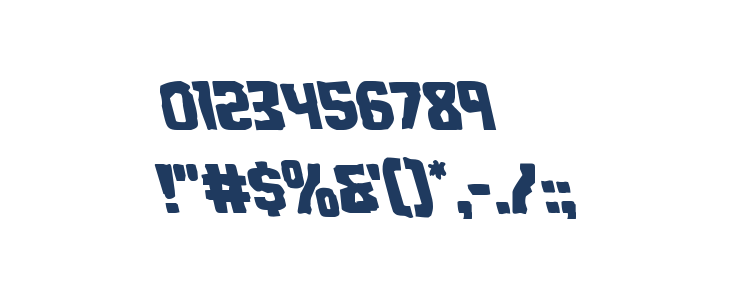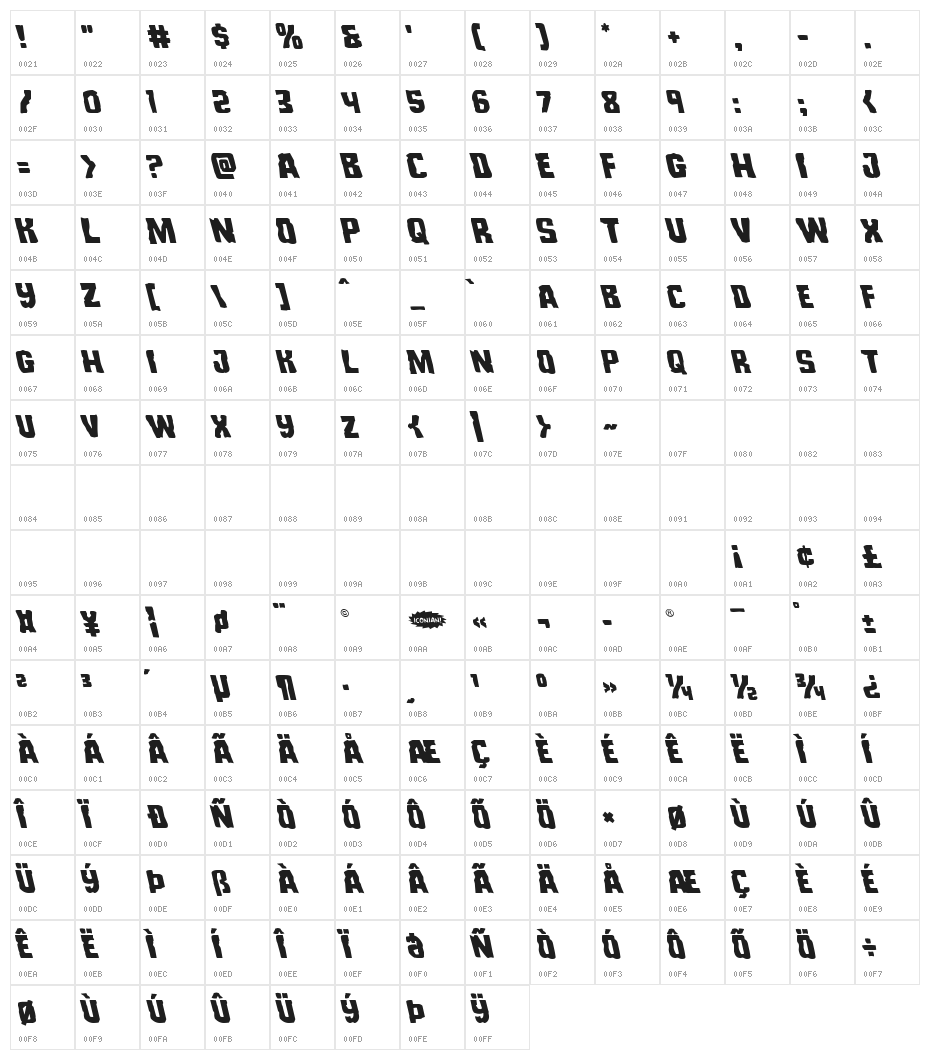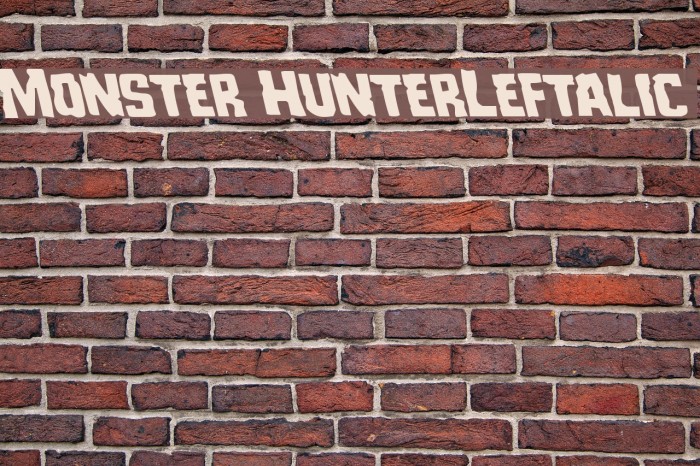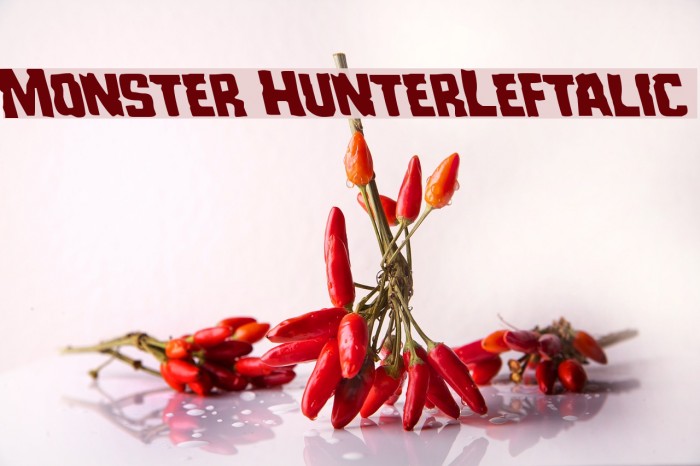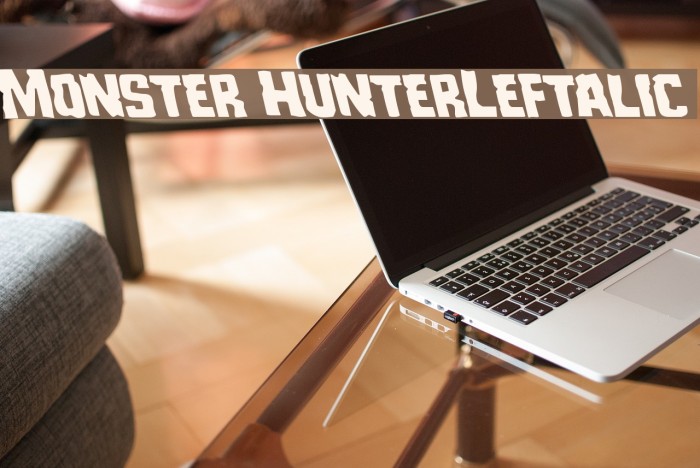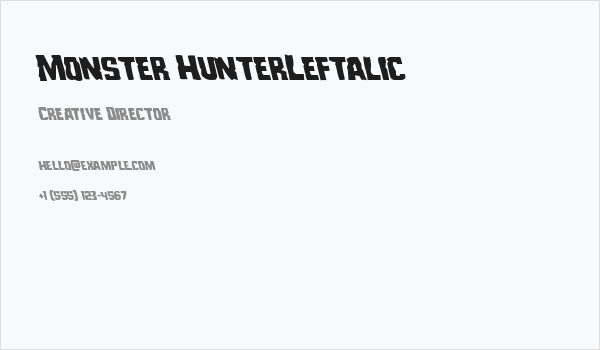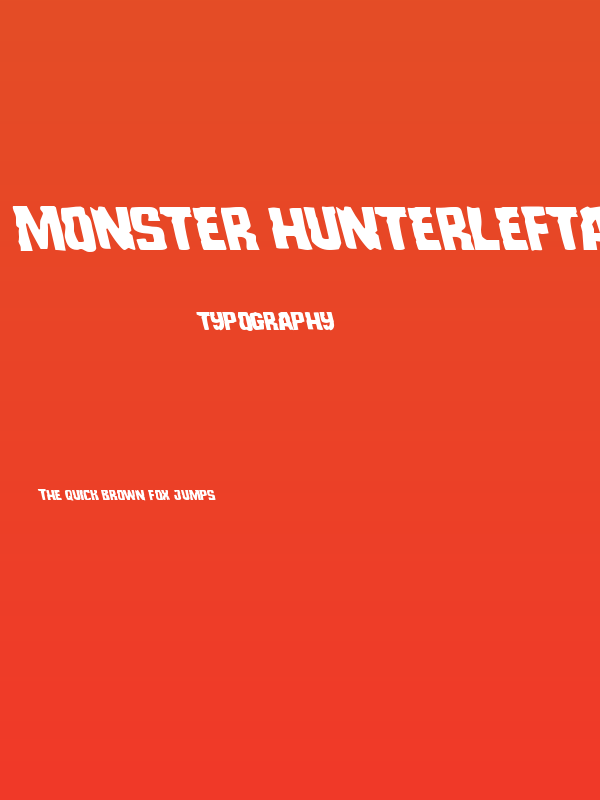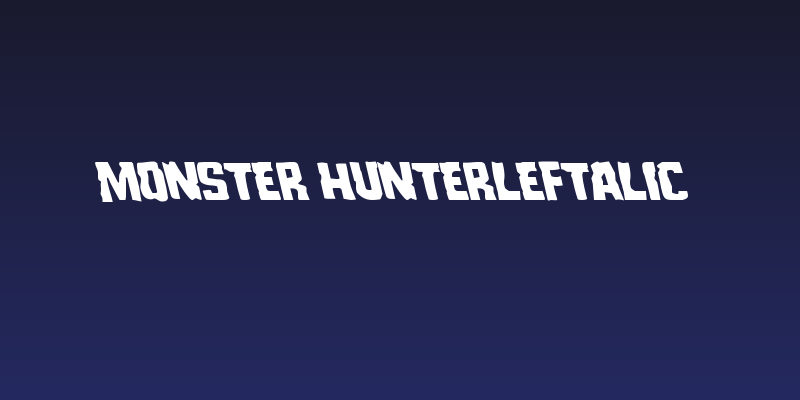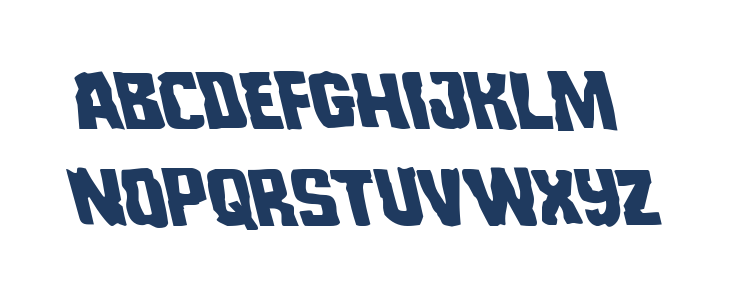
Monster HunterLeftalic Font
Monster HunterLeftalic Description
This font features a bold and dynamic style with a strong presence. The characters are heavily stylized with sharp angles and a slightly slanted orientation, giving an impression of movement and energy. The uppercase and lowercase letters maintain a consistent weight, contributing to a cohesive look. Numbers and special characters are designed with the same boldness, ensuring uniformity across all glyphs. The font's unique appearance makes it suitable for projects that require a standout, impactful typeface.
Proposed ProjectsIdeal for video game titles, movie posters, branding for extreme sports, and any project needing a bold, energetic typeface.